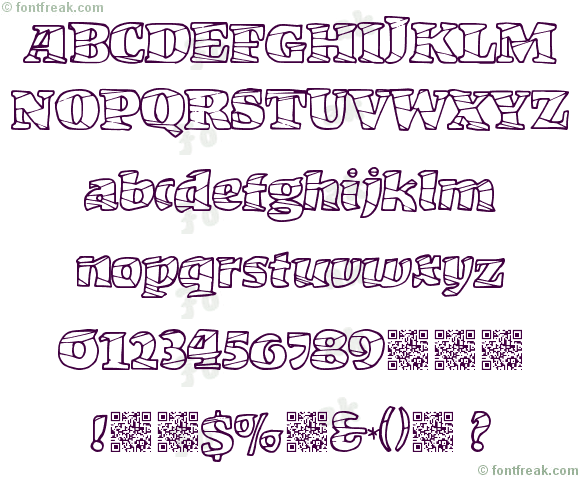
MarketCrash
The MarketCrash font by Xerographer Fonts is a striking display typeface that captures attention with its unique visual style. This font features a playful, yet edgy design characterized by irregular stroke weights and a hand-drawn quality that adds a touch of personality. The letters exhibit a deliberate inconsistency that creates an energetic and dynamic appearance, making it stand out in any layout. The spacing between characters is thoughtfully arranged to maintain readability while enhancing its artistic flair.
Ideal for a variety of creative projects, MarketCrash is perfect for use in eye-catching event posters, trendy restaurant menus, and vibrant branding for small businesses. Its distinctive look also lends itself well to social media graphics, making it a favorite among content creators looking to make a memorable impact. Graphic designers will appreciate its versatility, as it can be used in both digital and print formats, adding character to any design.
Targeting graphic designers, small business owners, and content creators, MarketCrash offers a fresh alternative to conventional typefaces. The font's unique characteristics make it a fitting choice for those looking to convey a sense of innovation and modernity in their work.
What sets the MarketCrash font apart is its ability to blend whimsy with professionalism. The hand-drawn elements give it an approachable feel, while the overall design maintains a sense of sophistication that can elevate any project. For those seeking a font that adds a distinctive touch without compromising on quality, the MarketCrash font free download is an excellent choice, allowing creatives to experiment and express their individuality through typography.